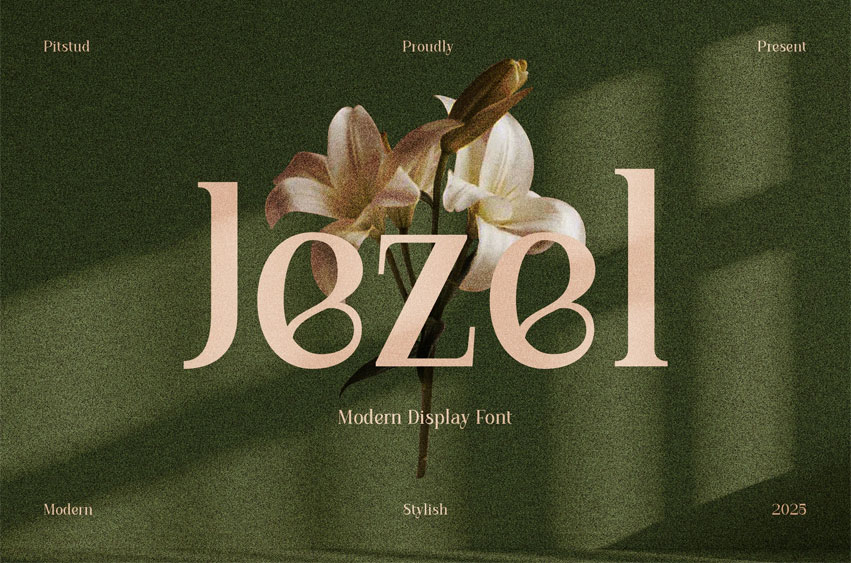
Jezel Font is a refined and stylish serif font crafted to embody sophistication, modern elegance, and bold confidence. With its luxurious letterforms and striking display style, Jezel brings a timeless sense of prestige, making it the perfect typeface for fashion, branding, and high-end creative projects.
Whether you’re working on a Retro brand identity, fashion editorial, elegant logo, or Classy packaging design, Jezel delivers the perfect blend of boldness and refinement. Its sleek details and balanced proportions make it ideal for upscale campaigns, advertising, magazines, and promotional visuals.
- Retro Classic Style: Bold yet elegant serif design with timeless appeal.
- Complete Character Set: Uppercase, lowercase, numerals, punctuation, symbols.
- OpenType Features: Alternates, ligatures, stylistic sets.
- Multilingual Support: Supports multiple languages, including English, Spanish, French, German, and Portuguese.
Jezel balances classic and modern creativity to give your designs a bold but sophisticated presence. Perfectly suited for fashion-forward projects and classy branding, Jezel ensures every word makes a statement of elegance.
- Retro Branding: Elevate your visual identity with refined sophistication.
- Fashion Editorials: Stylish type for modern magazines and layouts.
- Classy Packaging: Perfect for high-end product presentation.
- Logo Design: Create timeless and bold brand marks.
- Advertising Campaigns: Add elegance and impact to promotional visuals.